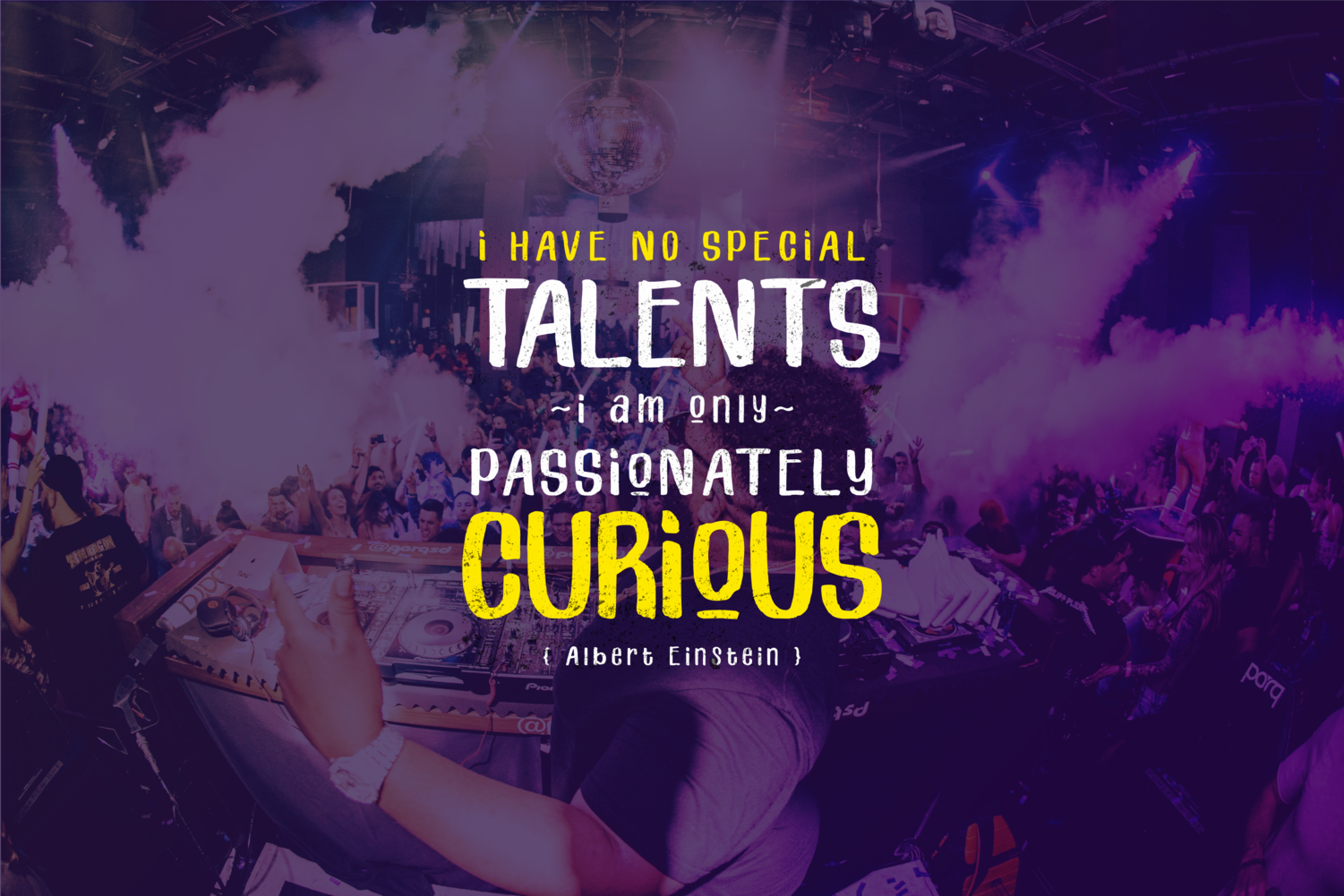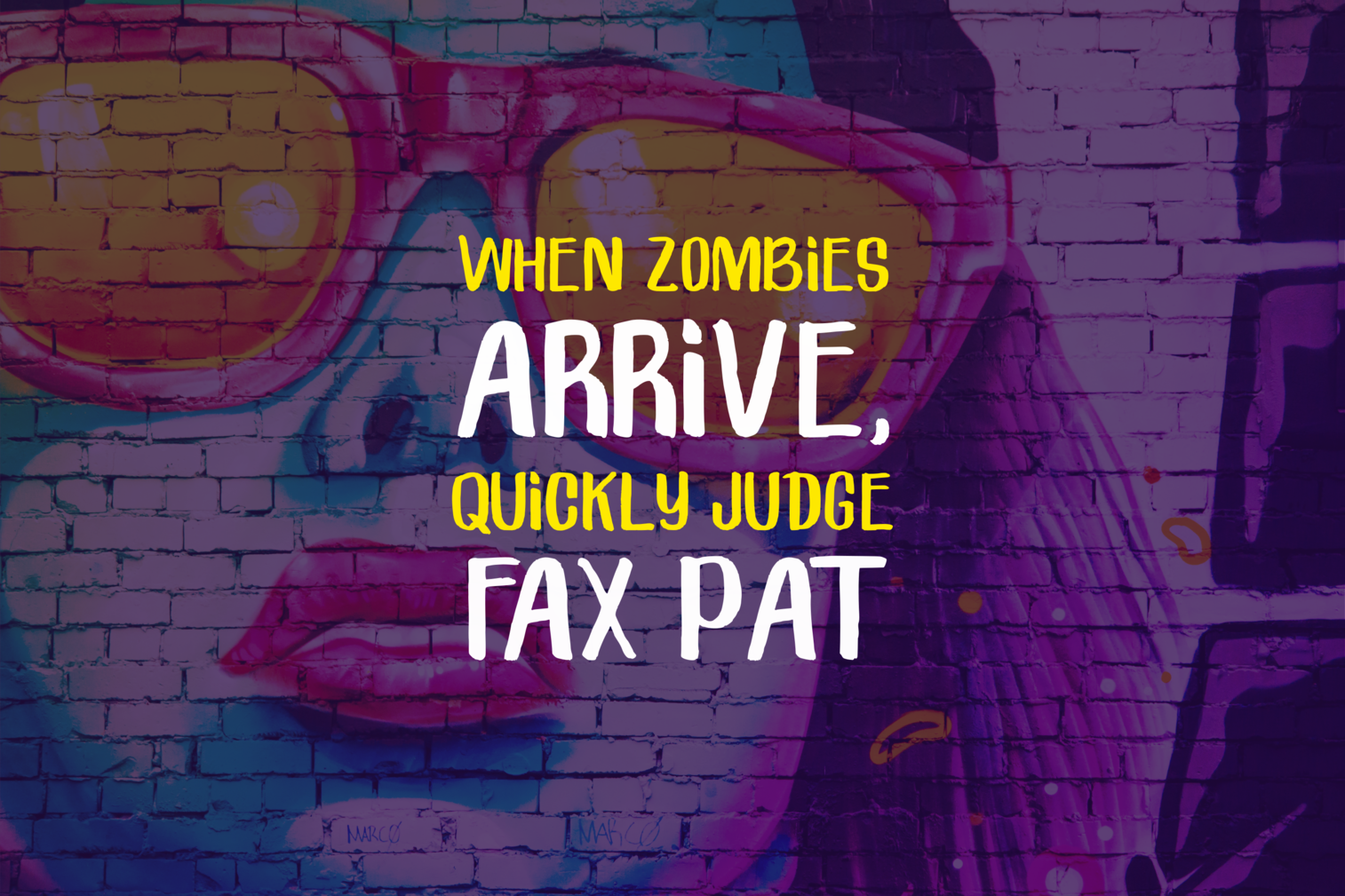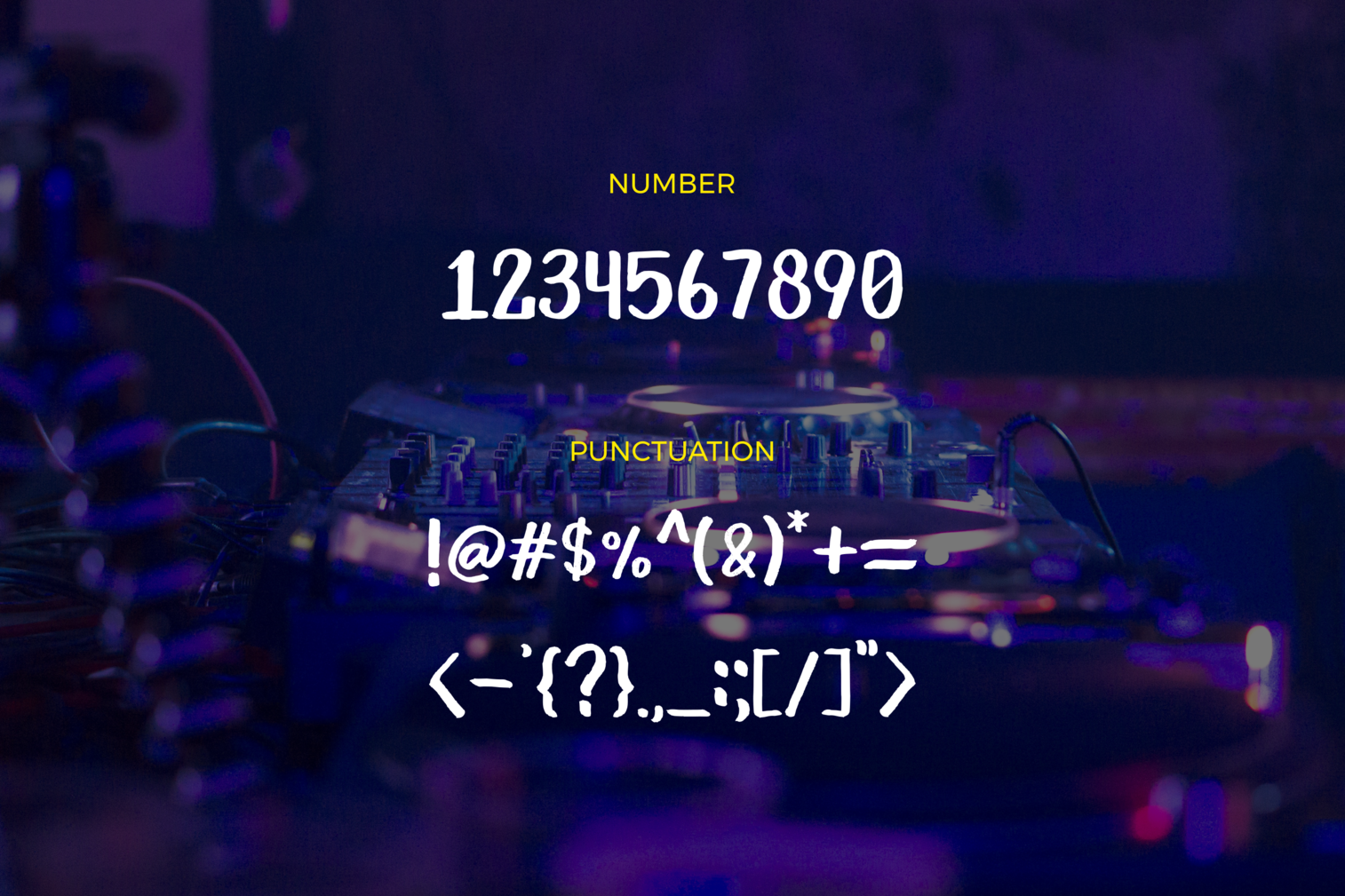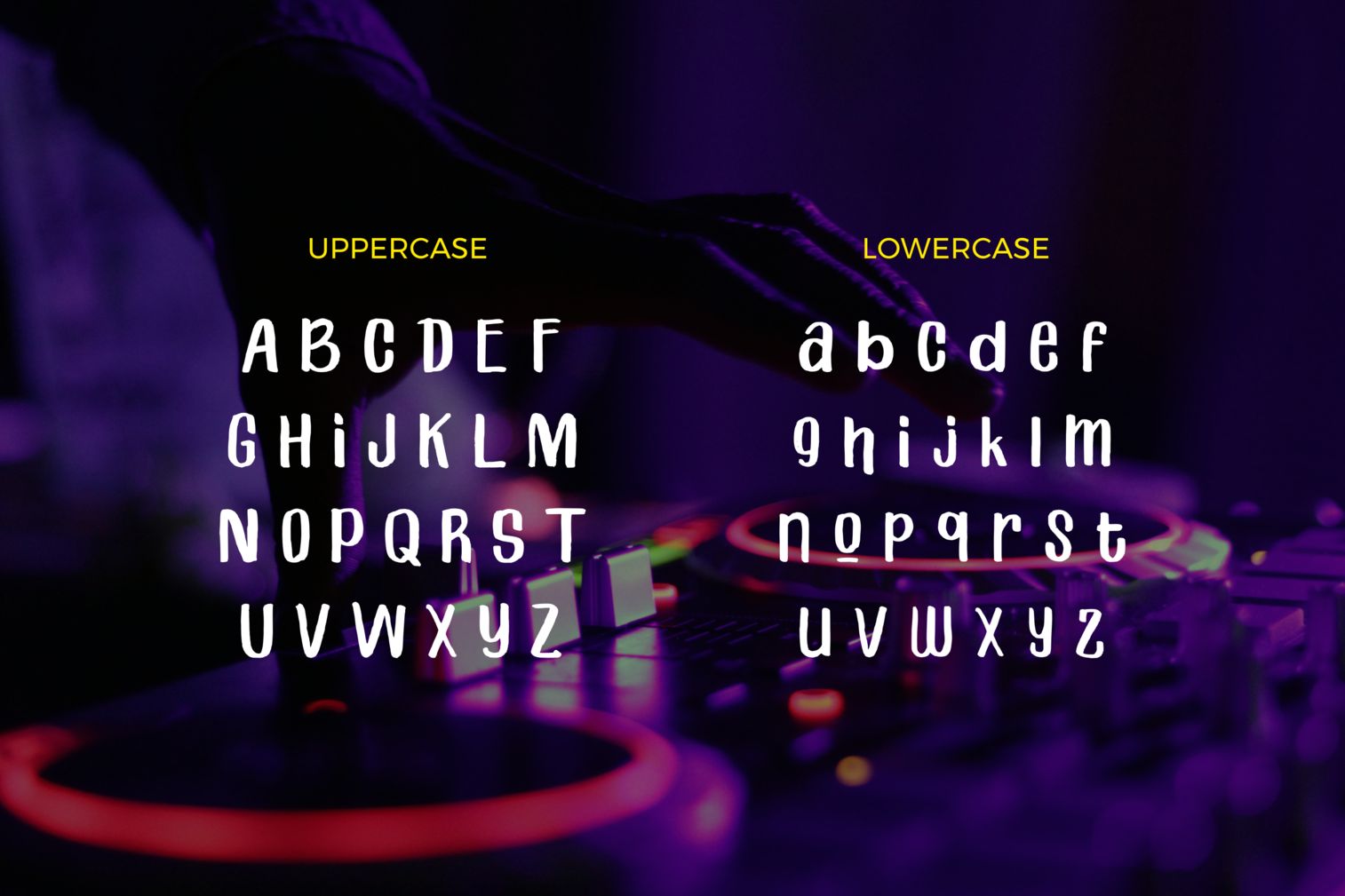
Primera Font
About Primera Font
Primera Brush Free Typeface is a new authentic brush font crafted with brush pen by LetterStuff™ Typefoundry. This marker-like typeface will work great on wide range of design work given its legibility and neat appearance.